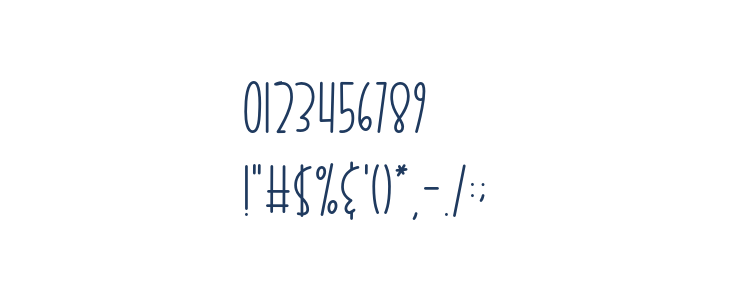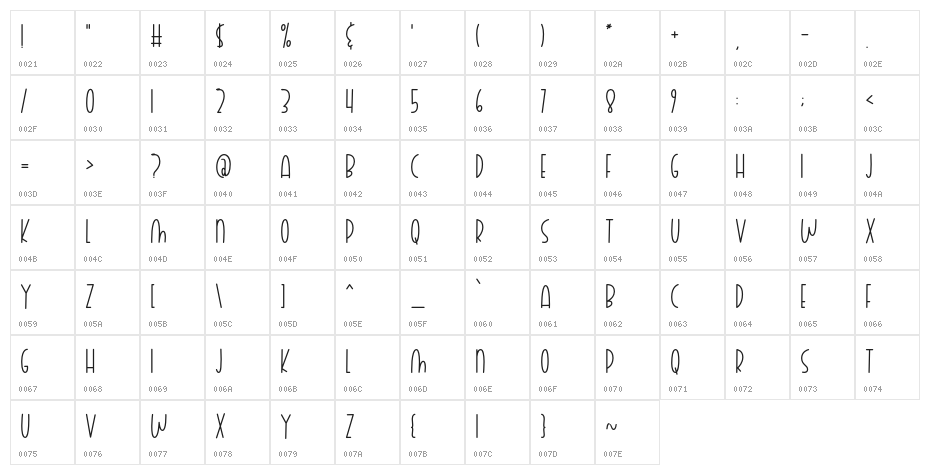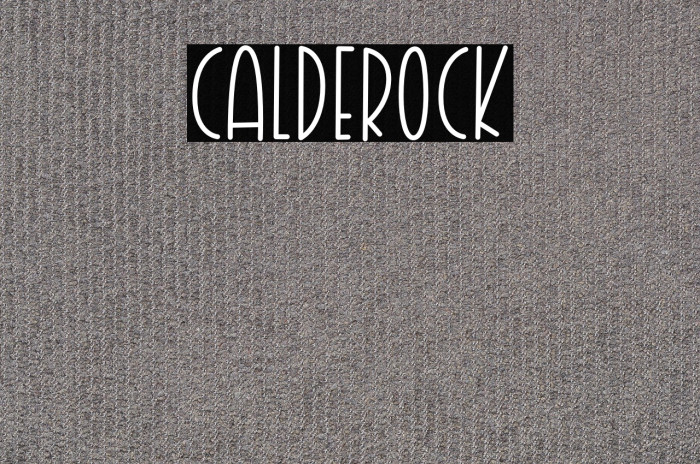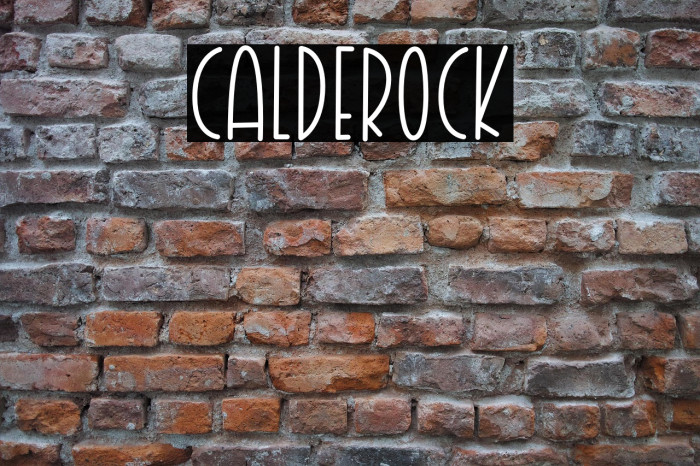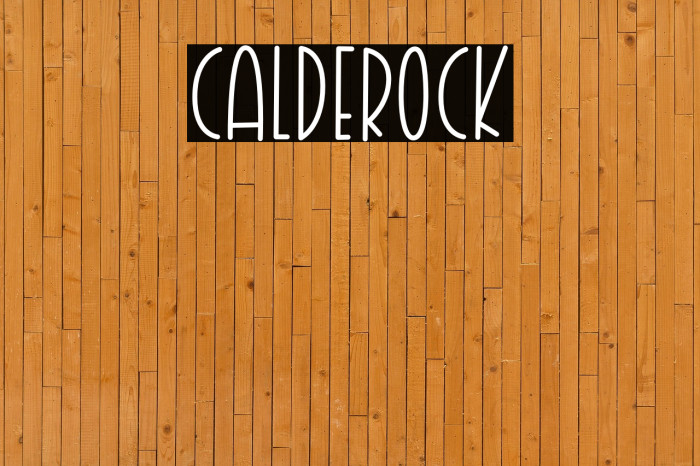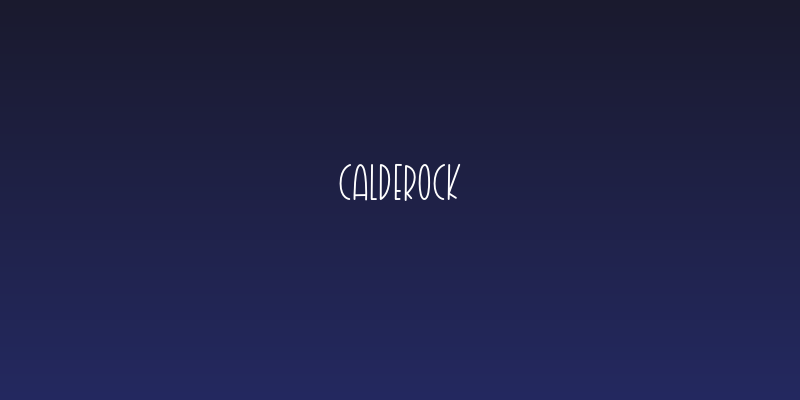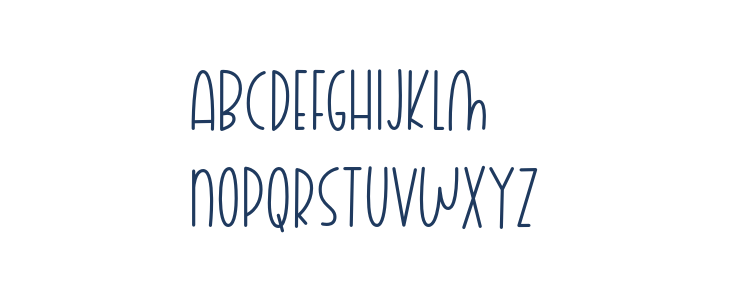
Calderock Font
Calderock Description
This font features a playful and whimsical design with tall, narrow characters that have a hand-drawn feel. The letters are slightly irregular, adding to the casual and friendly appearance. The strokes are consistent in width, giving it a clean and modern look while maintaining a sense of fun. The font includes a full set of uppercase and lowercase letters, numbers, and a variety of special characters. Its unique style makes it suitable for creative projects that require a touch of personality and charm.
| Width | Condensed |
| Overall Style | Playful |
| Proposed Projects | Ideal for children's books, greeting cards, playful branding, and creative posters. |